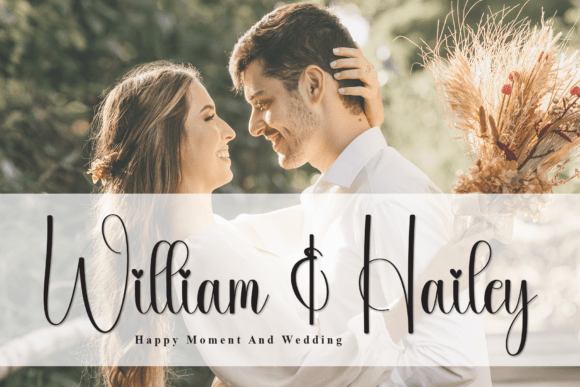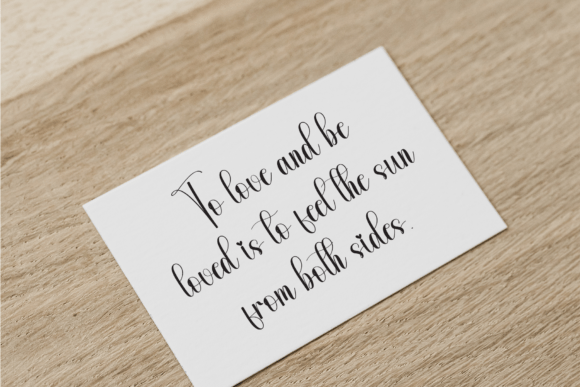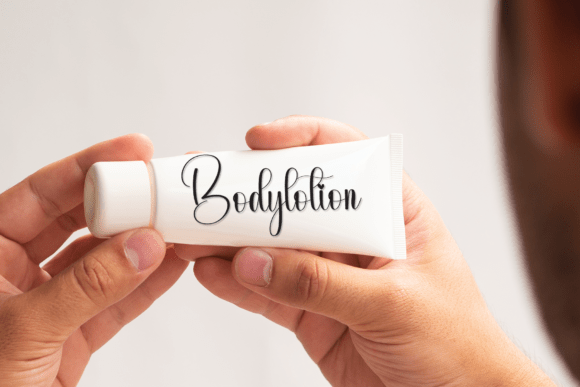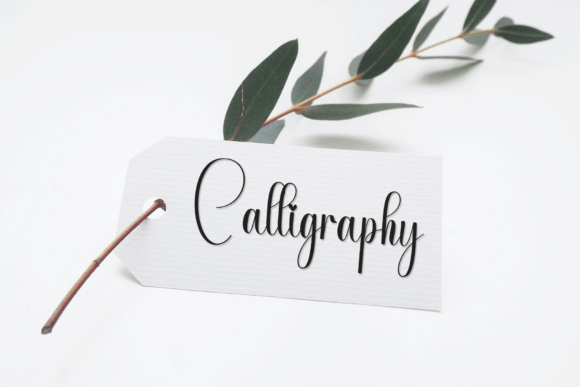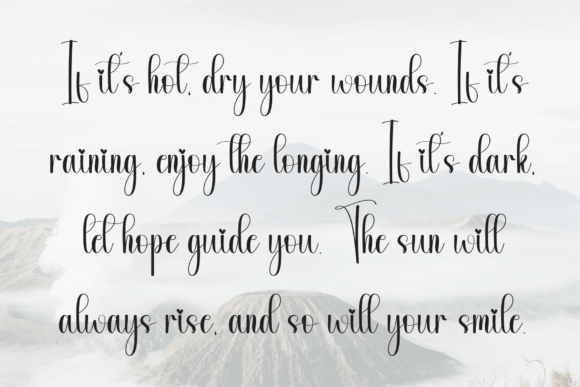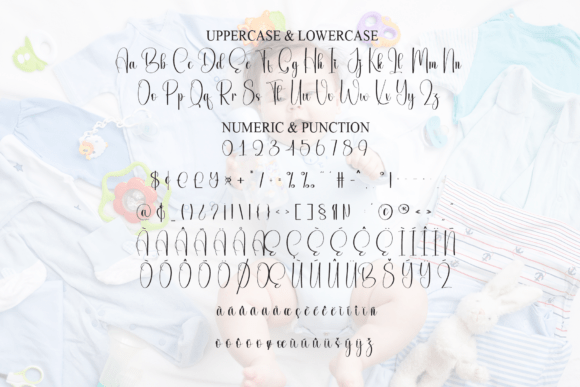
Discover the Joy of Babyday Font
Who among us hasn’t felt a spark of creativity when doodling with a pen and paper? The gentle scratch of the nib, the flow of ideas, and the satisfaction of bringing a concept to life. That’s exactly what happens when designers get their hands on the delightful Babyday Font.
This charming handwritten display font is designed to spread joy and friendliness wherever it’s used. Whether you’re crafting wedding invitations, designing greeting cards, or working on any project that needs a dash of whimsy, Babyday Font is the perfect companion. Its playful attributes and sweet touch make it a valuable addition to any designer’s toolkit, injecting a pinch of creativity and fun into every design.
Babyday Font Key Features
- Font Family: Babyday Font is a unique, handwritten font designed for baby-related projects, offering a playful and cute feel.
- Unique Characteristics: Babyday Font features a distinctive, hand-drawn style with subtle imperfections, giving it a natural and organic feel.
Babyday Font Review
As a designer, I was excited to dive into the Babyday Font and see if it could bring some charm to my next project. Overall, I have mixed feelings about this font, but let’s break it down.
- The font’s playful, hand-drawn feel is perfect for children’s books, nursery decor, or any project that needs a whimsical touch.
- The Babyday Font includes a wide range of characters, including accented letters and punctuation marks, making it suitable for various languages.
- The font is highly customizable, allowing users to adjust the size, color, and spacing to fit their design needs.
- The font’s aesthetic is somewhat generic and might not stand out in a crowded market.
- There are limited font weights available, which might limit the font’s versatility in certain design situations.
While the Babyday Font has its strengths, it ultimately feels like a solid but unremarkable addition to any designer’s toolkit. If you’re working on a project that requires a playful, hand-drawn feel, this font might be worth considering. However, if you’re looking for a more unique or high-end font, you might want to explore other options.